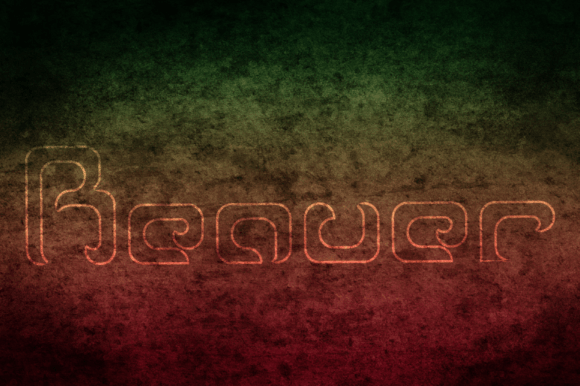
**Introducing Reaver - The Spine-Tingling Font That Will Haunt Your Designs**
Unleash the horror within your designs with Reaver, the exclusive display font that will send shivers down your spine. Created by the masters of the macabre at Megami Studios, Reaver embodies the very essence of terror, making it the perfect font for all your creepy creations.
Prepare to be mesmerized by Reaver's eerie details and menacing curves that will add an air of chilling elegance to your designs. Whether you're crafting spine-tingling posters, chilling graphics, or haunting Halloween-inspired treats, Reaver will infuse your creations with a sinister charm that will leave a lasting impression.
Don't settle for ordinary fonts that blend into the background. Dare to be different with Reaver, the horror-inspired display font that will make your designs scream with delight. Join the legion of designers who have embraced the dark side of typography and let Reaver elevate your designs to new heights of terror.
**Why Use Reaver?**
- **Create Eerie Posters That Haunt:** Captivating posters that will send chills down your spine and leave a lasting impression.
- **Design Spine-Tingling Graphics:** Elevate your graphics with Reaver's menacing curves and eerie details, adding a touch of horror to every element.
- **Craft Halloween Delights:** Celebrate the spookiest night of the year with Reaver-infused designs that will make your Halloween creations stand out from the ordinary.
- **Unleash Your Dark Creativity:** Let your imagination run wild and explore the depths of your creativity with Reaver, the font that will bring your horrifying visions to life.
**Experience the Power of Reaver Today**